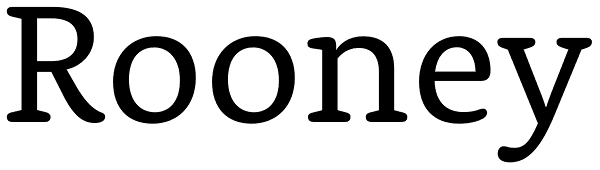
Rooney
Rooney is a serif typeface with a warm and friendly feel. Rounded serifs and terminals create a strong impression in large headlines, while running text becomes soft and sympathetic when set in small sizes. Rooney includes six weights from Light to...